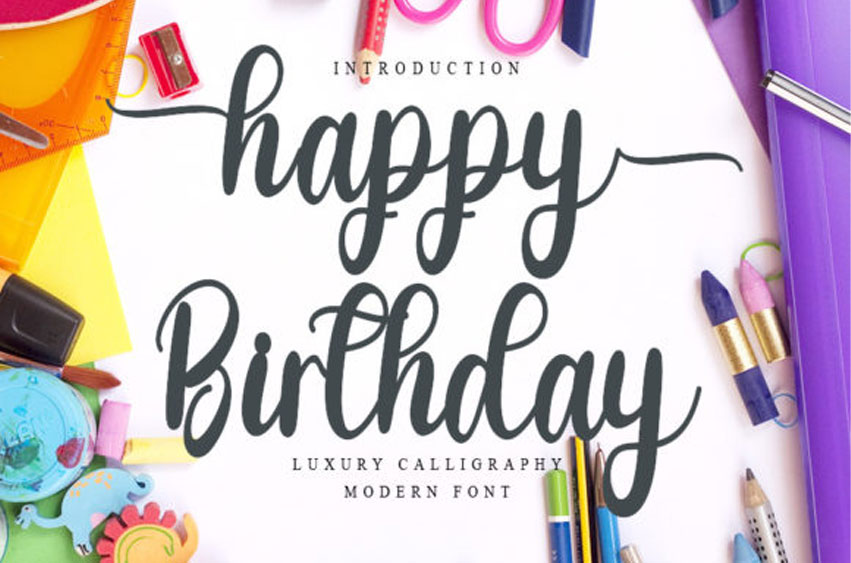
Happy Birthday Calligraphy Font
Happy Birthday Calligraphy Font is a flowing and thin script font. Featuring characters that dance along the baseline, this font will add a luxury spark to any design project that you wish to create!